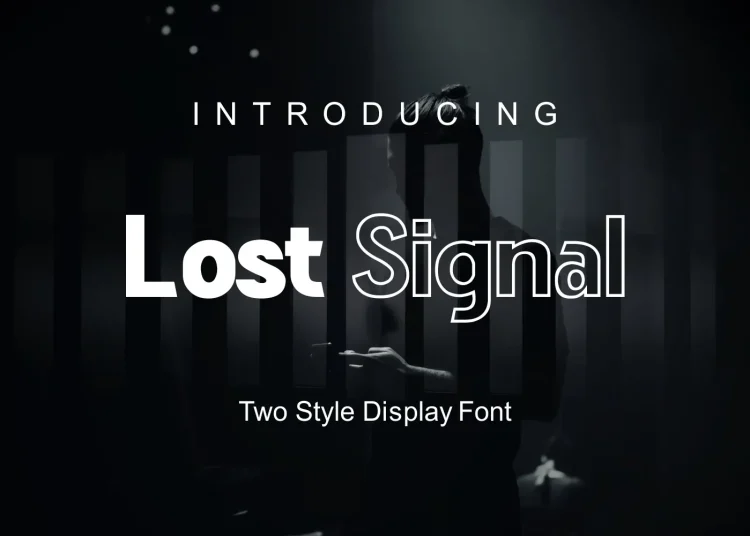
Lost Signal Font
Introducing The Lost Signal, a captivating two-style display font designed to command attention and evoke a sense of bold personality. Ideal for editorial headlines, this font boasts a strong, commanding presence that is perfectly suited for a variety of applications, including posters, extreme sports branding, automotive advertisements, and magazine covers.
Each style of The Lost Signal font exudes its own unique charisma, offering a dynamic range of expression for content creators and designers alike. With reserved upper and lower cases, this typeface stands out as a versatile tool for crafting impactful designs with ease.
The Lost Signal font doesn’t just stop at aesthetics—it’s designed for optimal readability and usability, featuring fl and fi ligatures that enhance the fluidity of the text. Its calm yet bold demeanor ensures that every message is delivered with clarity and confidence.